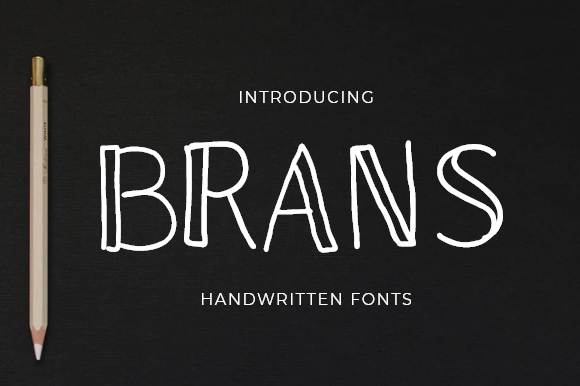
Brans Font
About Brans Font
Brans is a cool and casual handwritten font with an incredibly friendly feel. Whether you’re looking for fonts for Instagram or calligraphy scripts for DIY projects, this font will turn any creative idea into a true piece of art!